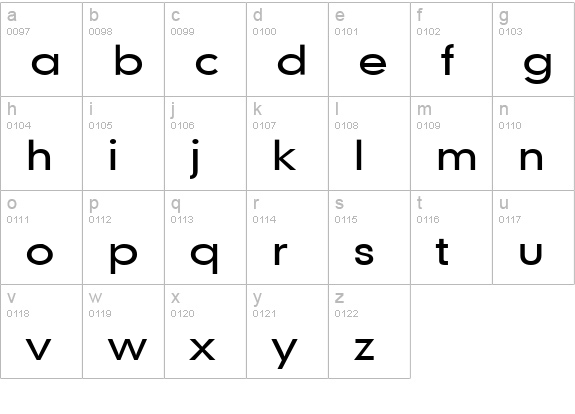
Geo 579 Wide Normal is the standard, neutral, extended-width variant in the Geo typeface family \xE2\x80\x94 well suited to general body text, paragraphs, and standard typographic work.
Geo 579 Wide Normal font is a stylish and modern typeface that is perfect for a wide range of design projects. Its wide letterforms and clean lines make it a versatile choice for both print and digital applications. This font exudes confidence and sophistication, making it ideal for branding, advertising, and editorial design. The best part is that Geo 579 Wide Normal font is available for free download at FontsMarket.com. This means you can easily access this high-quality font without any cost, making it a valuable addition to your font collection. Don't miss out on the opportunity to enhance your designs with this sleek and professional typeface. Download Geo 579 Wide Normal font today and elevate your projects to the next level.